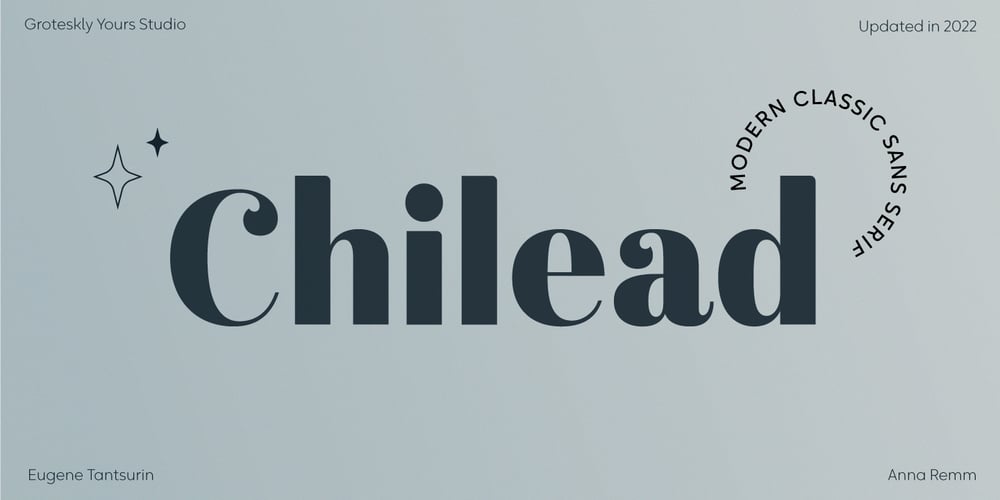
Chilead Font Family was designed by Eugene Tantsurin and published by Groteskly Yours. Chilead contains 1 styles and family package options. Chilead is reminiscent of the early days of magazine publishing. Its elegant curves, high contrast and all-round heartwarming feel are perfect for art projects and typography across all mediums. Chilead is a sans serif font that looks great in titles, when used in larger sizes – but is not out of the place in a text either, which makes it a perfect choice for artists and designers who pursue not only the aesthetic qualities of the font, but also its functionality.Originally designed in 2019 and fully updated and expanded in 2022, Chilead offers users a large set of ligatures (both standard and discretionary) and a number of alternative forms for letters (such as a, v, w, y, etc).Chilead comes equipped with 600+ glyphs, which covers most of Latin-based scripts. Carefully kerned, Chilead is ready to be used in any project that requires a typeface that combines unique and stylish letterforms with a modern feel.